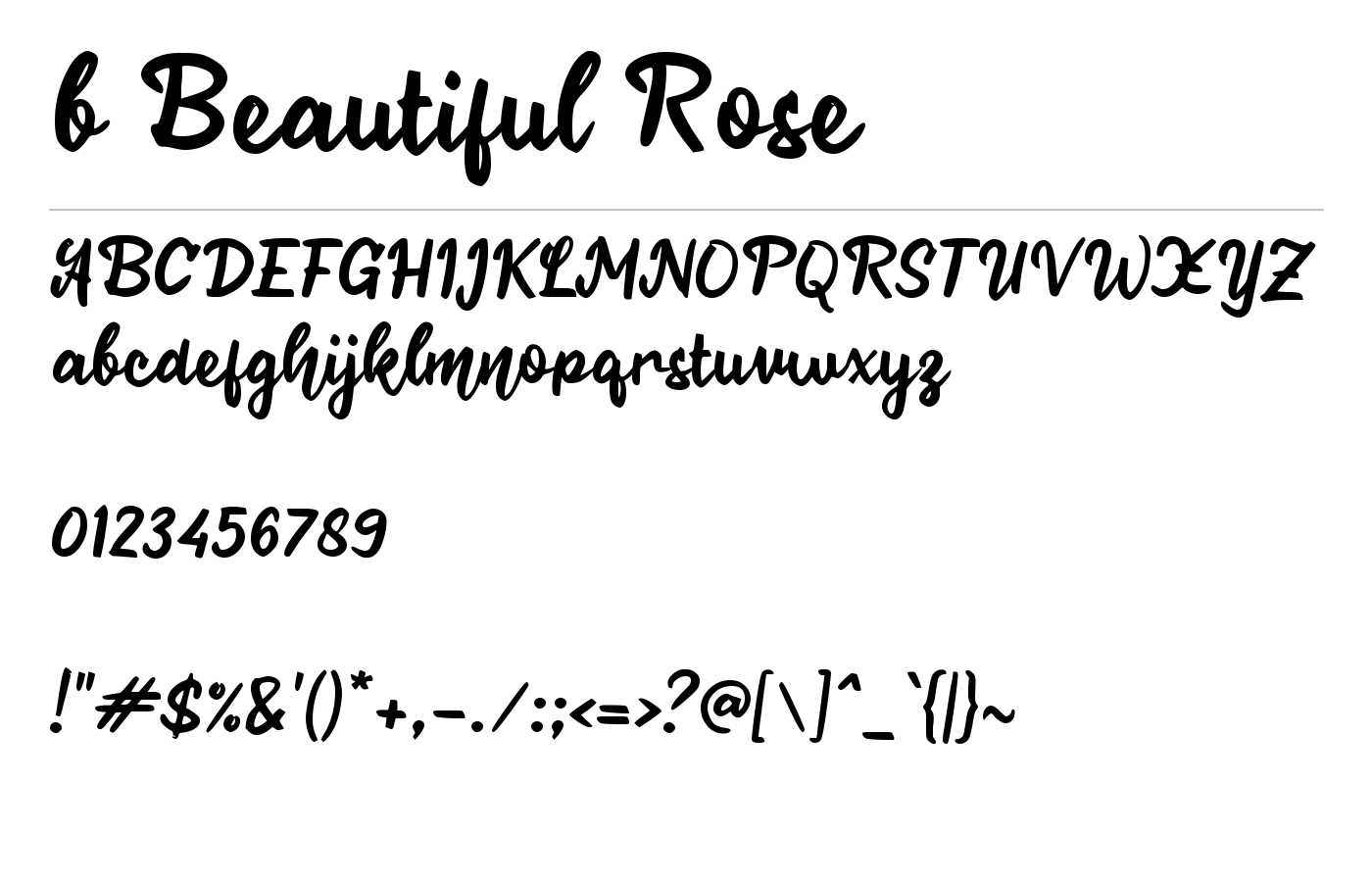
Beautiful Rose is a lively script font with smooth, rounded strokes and a friendly, handwritten feel. Its medium weight and slightly tall x-height give it good readability while its casual, playful curves make it perfect for inviting, personal branding and creative design projects. This font works especially well for logos, invitations, and packaging that aim to convey warmth and charm.
b Beautiful Rose Font
About b Beautiful Rose Font